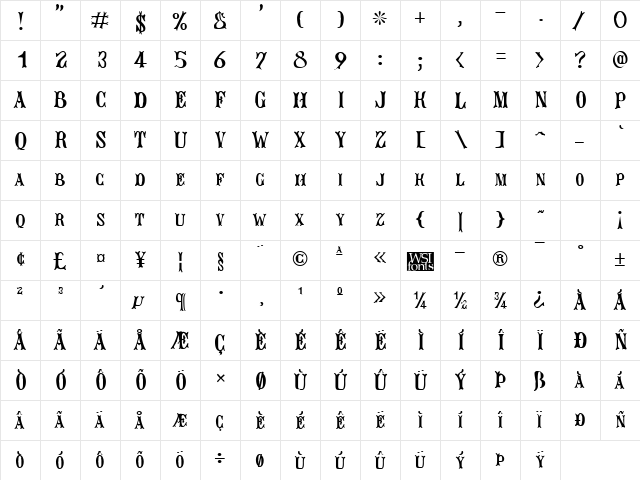
JacquesRoughcut Regular
Design Context for JacquesRoughcut Typeface
JacquesRoughcut embraces imperfection — its rough, textured character adds raw authenticity to designs that want to feel lived-in and unconventional.
Suited to punk-influenced zines, underground music branding, streetwear, and raw, anti-corporate design.
Pro Tip: Pair JacquesRoughcut with intentionally raw or lo-fi design elements. Fighting against it with overly polished surroundings will undermine its personality.